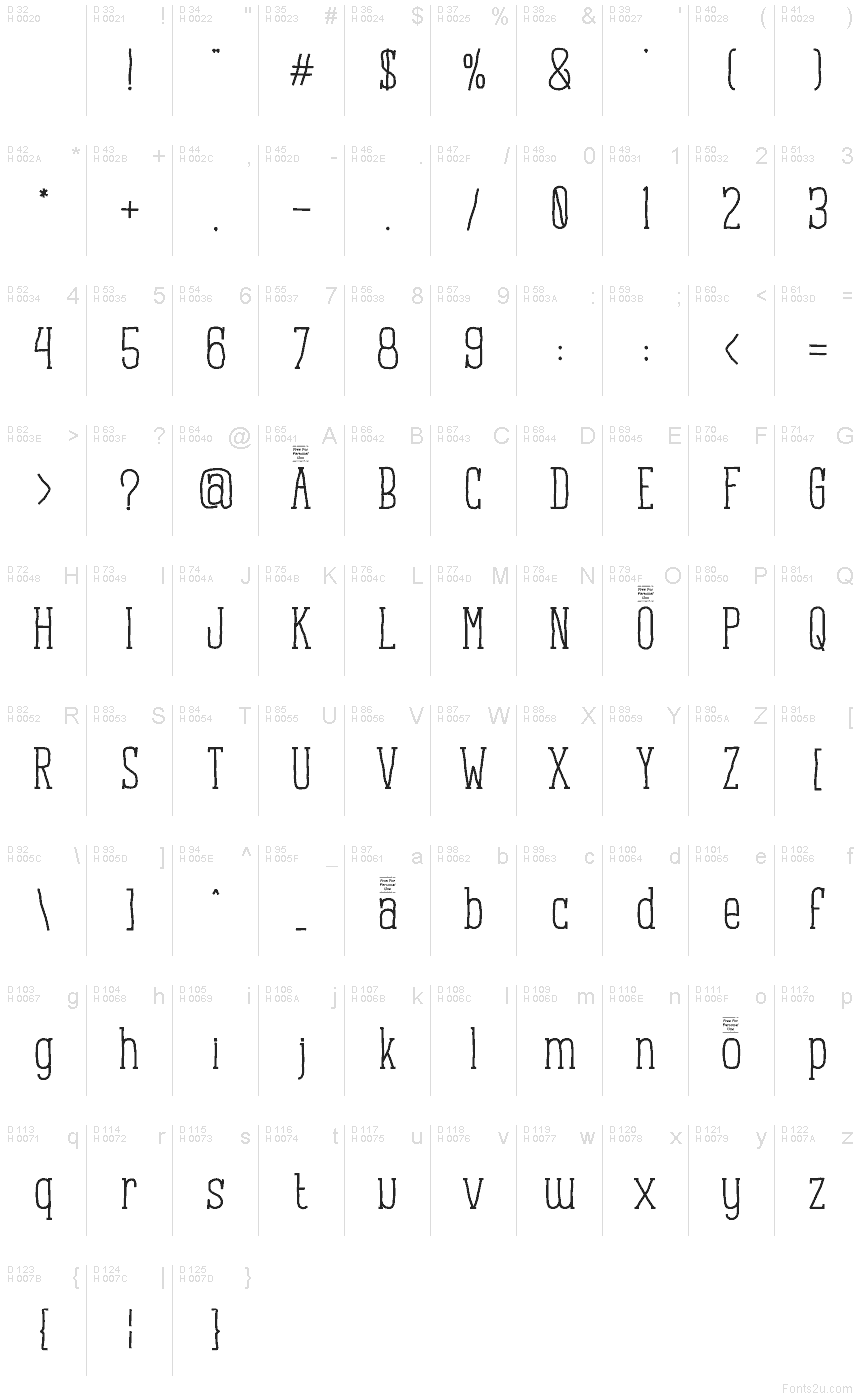
Ghosted Mermaid
Ghosted Mermaid font by Emerdia studio is a free handwritten font with a salt-worn, spectral vibe. Its defining charm is the tall, super-condensed rhythm—slender strokes that look slightly rippled, like inky lines pulled through water. The edges feel softly distressed, adding just enough grit to keep it human while still reading clean at headline sizes.
Using Ghosted Mermaid, you’ll get moody titles for book covers, witchy posters, indie zines, candle or soap labels, coastal cafe menus, and Halloween invites. It shines on packaging and atmospheric branding where a lean silhouette saves space without losing character. Pair this free font with a quiet rounded sans, and give it roomy line spacing to let the airy texture breathe.